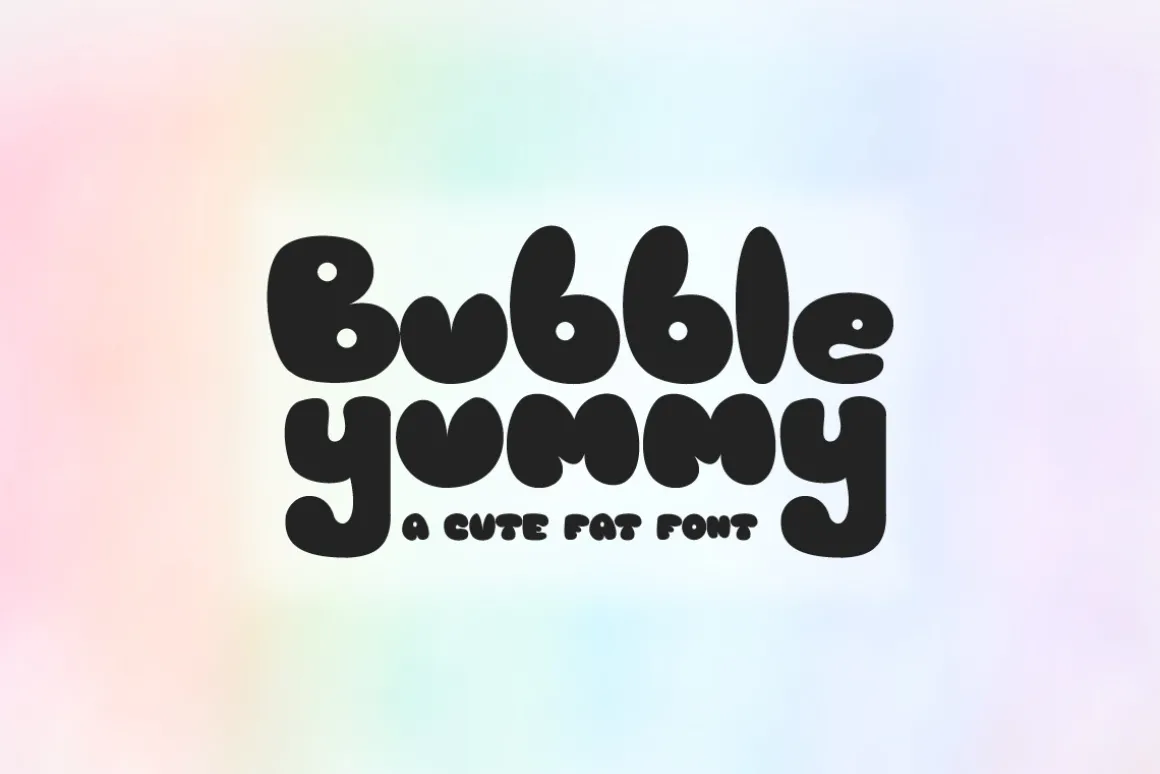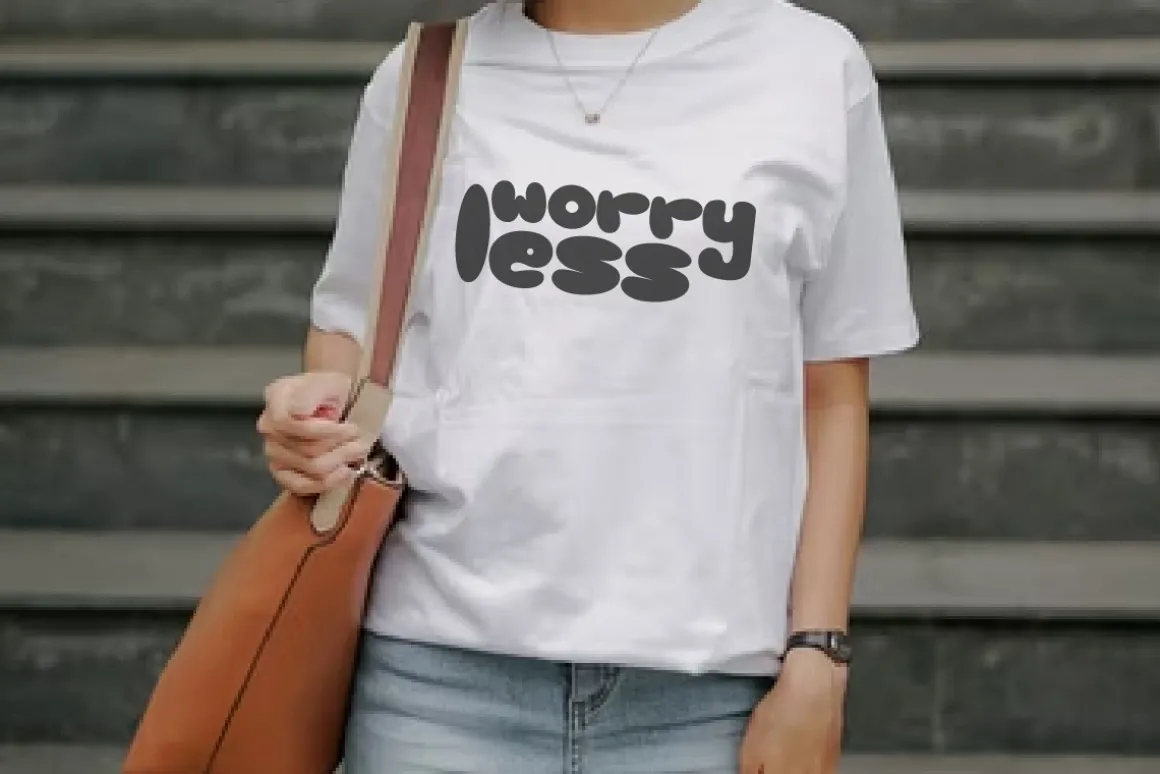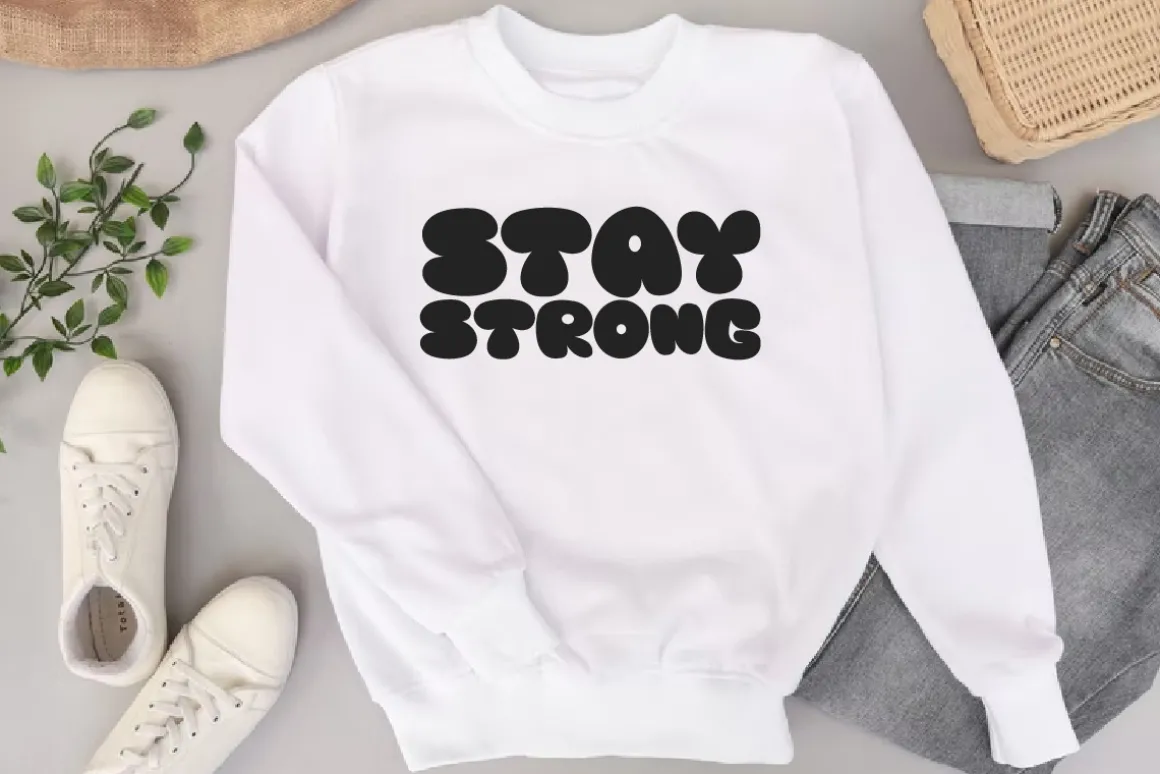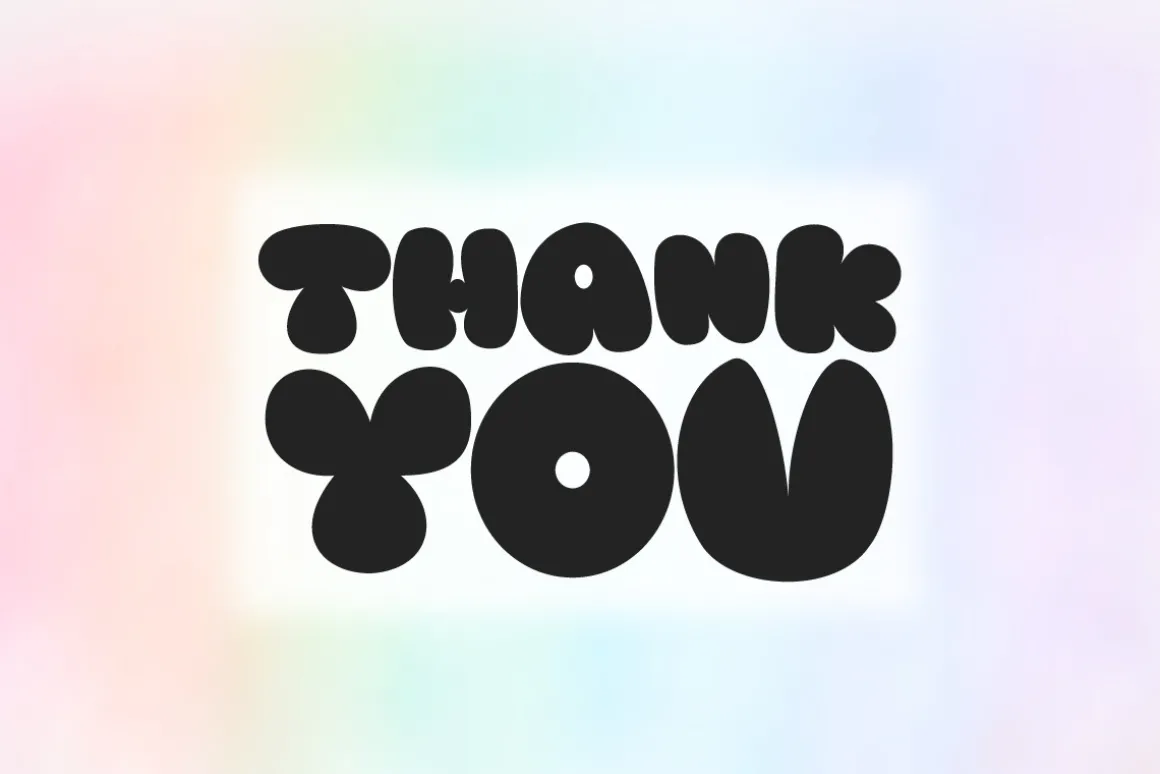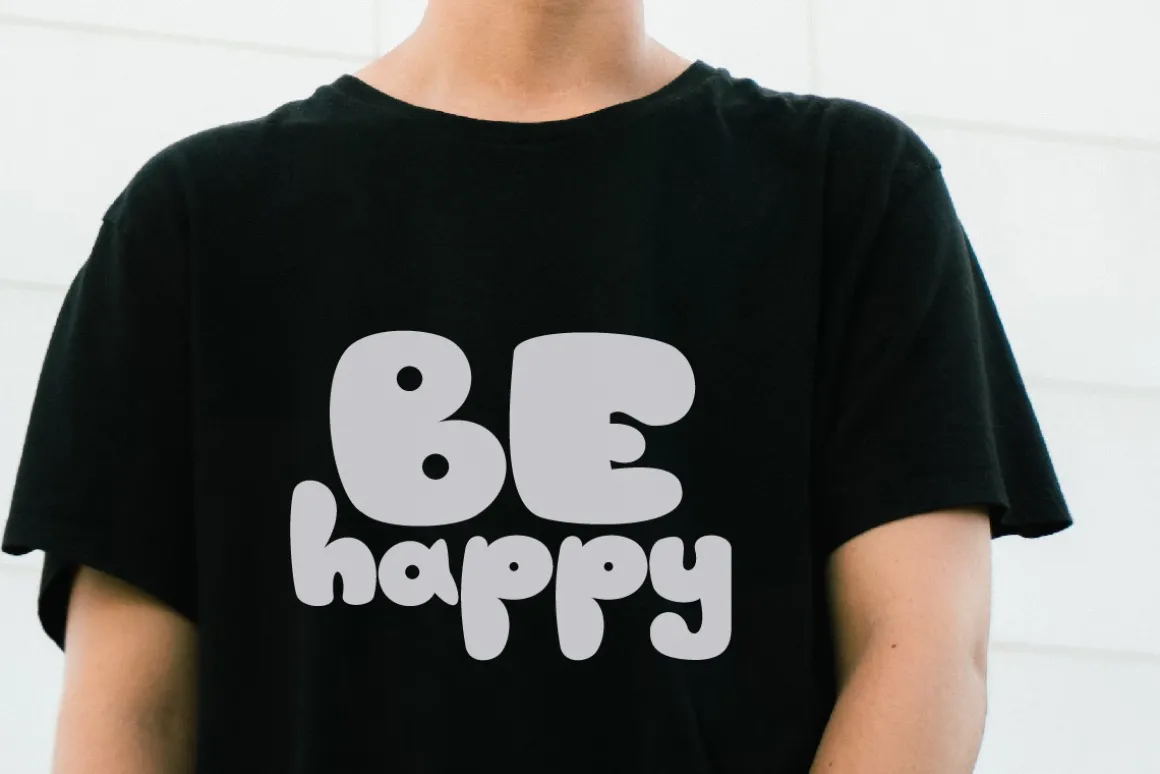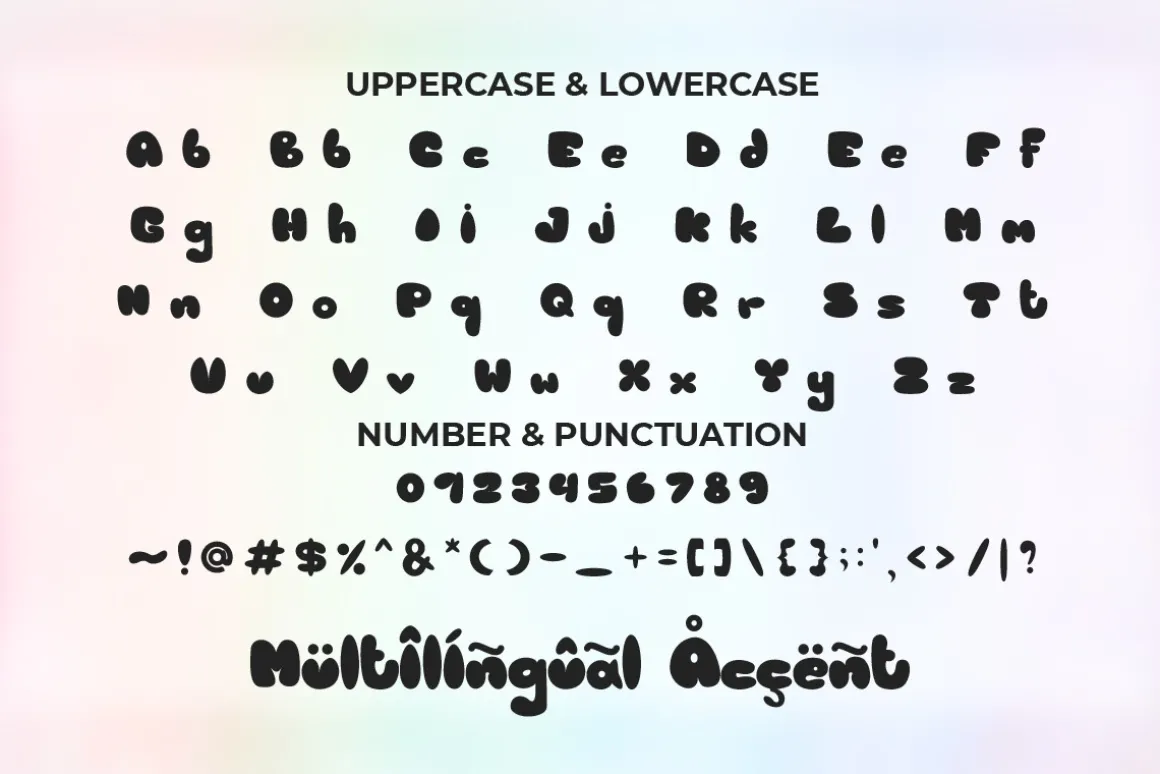
Bubble Yummy is a Cute Retro font that will make your designs look unique and fun. It’s perfect for labels, quotes, posters, DIY projects, branding, packaging, greeting cards, websites, photography overlays, signs, window art, scrapbooking, tags and so much more!
- Multilingual Accent